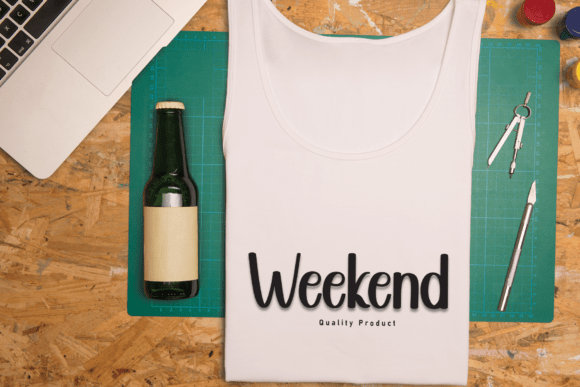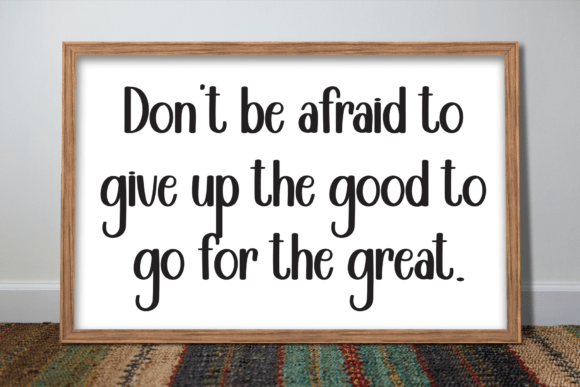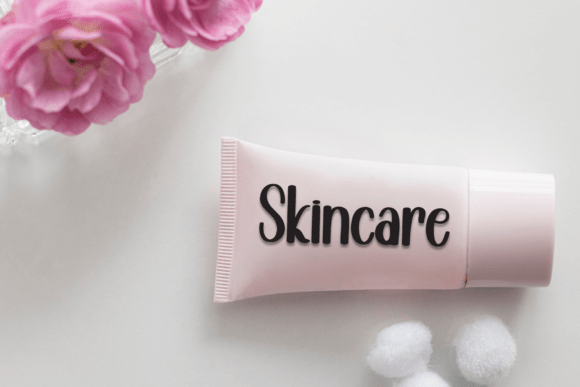
Boyfriend Font
Introducing a charming and delightful handwritten display font: An enchanting symphony of friendly cursive strokes, intentionally created to infuse sweetness and warmth in each line. Perfectly designed to lend a playful flair, this font exhibits an excellent choice for crafting romantic wedding invitations, heartfelt cards, or any design seeking a dash of fun. Create inviting and visually appealing designs that captivate and resonate with your audience using this irreplaceable font.